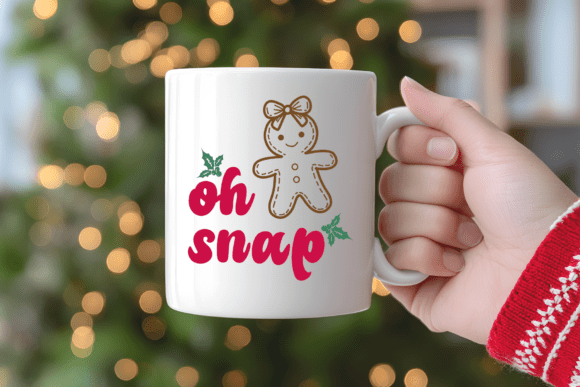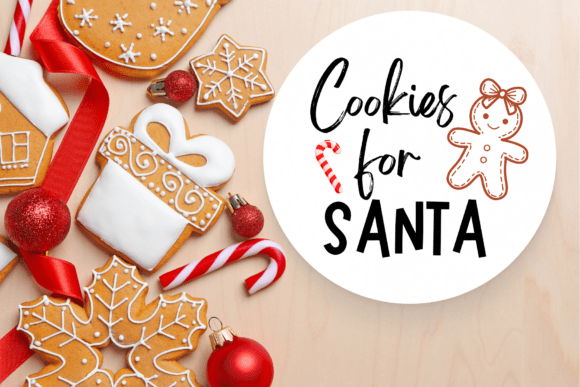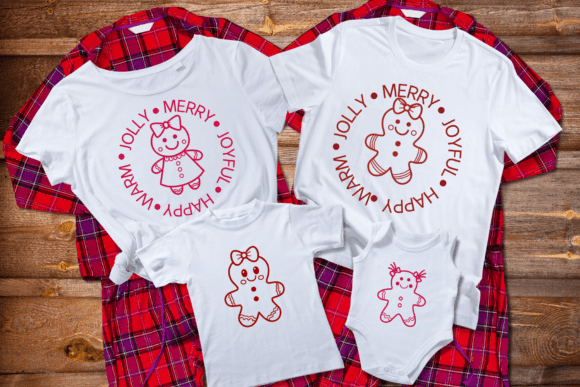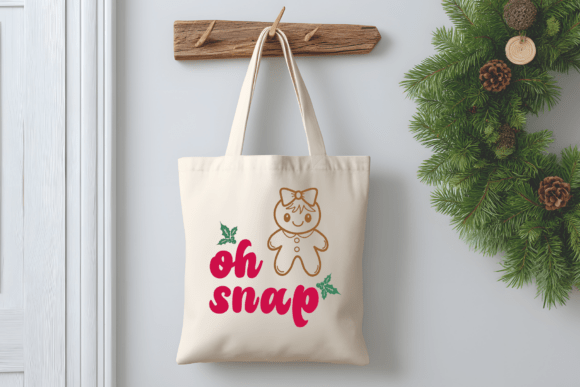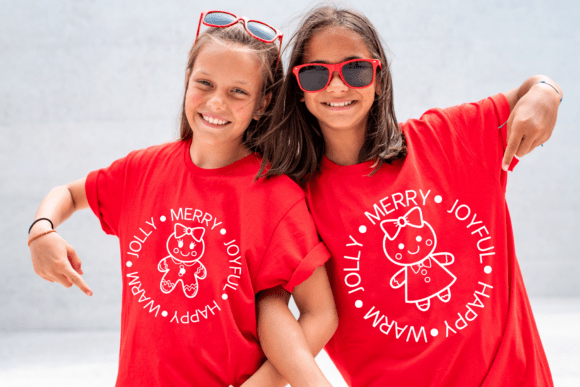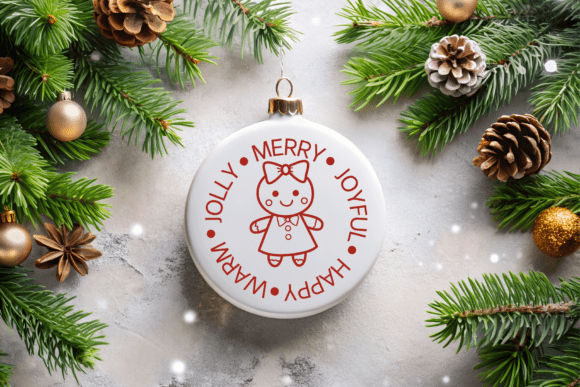
Introduction to Gingerbread Girl Font
Gingerbread Girl Dingbat Font is a cute and playful collection of gingerbread cookie girls, perfect for kids’ Christmas projects.
Add a sweet festive touch to your cards, crafts, toys, and stickers Each adorable cookie character brings holiday cheer and joy to your creative designs.